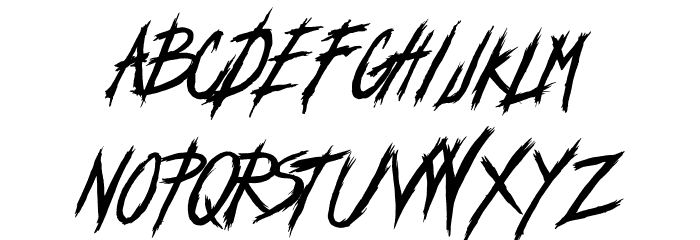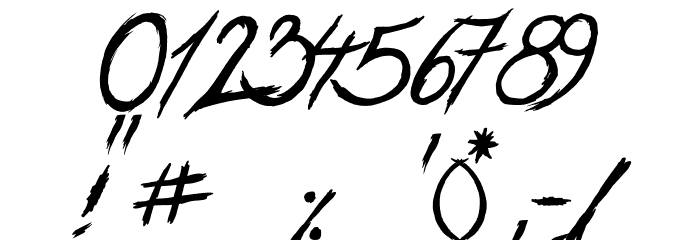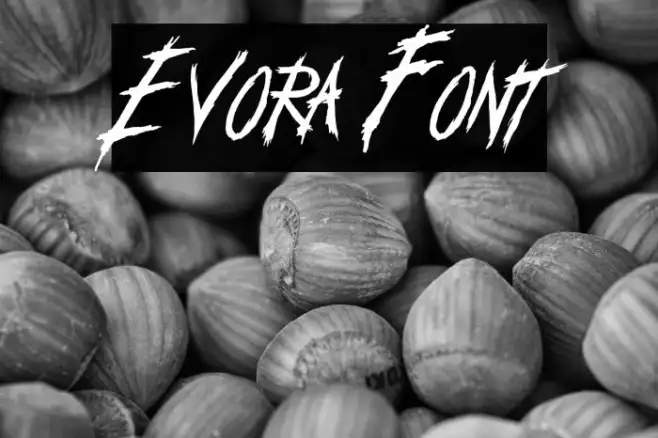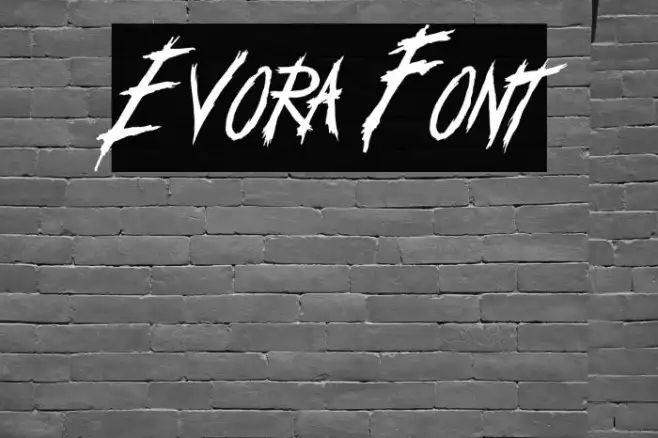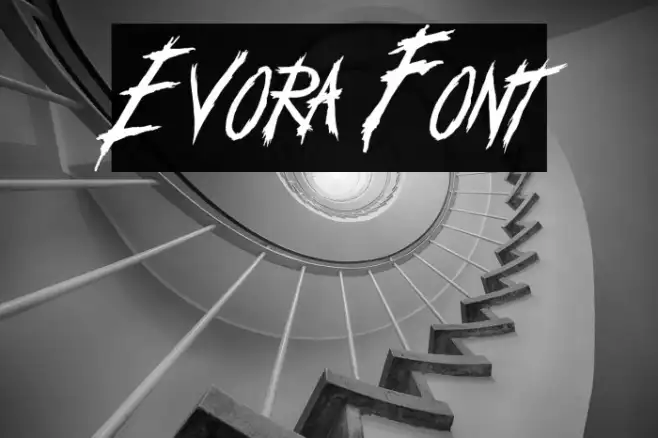
Evora Font
This font features a bold and dynamic style with sharp, jagged edges that give it an aggressive and energetic appearance. The letters are slanted, adding a sense of motion and urgency. The strokes are uneven, with some parts thicker than others, creating a high contrast that enhances its dramatic effect. The uppercase and lowercase letters maintain a consistent design, while the numbers and special characters follow the same edgy aesthetic. This font is perfect for projects that require a bold statement and a touch of rebellious flair.
A bold, jagged font with high contrast and dynamic slanted letters.
- Font: Evora
- Proposed Projects: Ideal for music album covers, extreme sports branding, horror movie posters, and edgy fashion labels.
- Character Spacing: Tight
- Overall Style: Modern, Aggressive